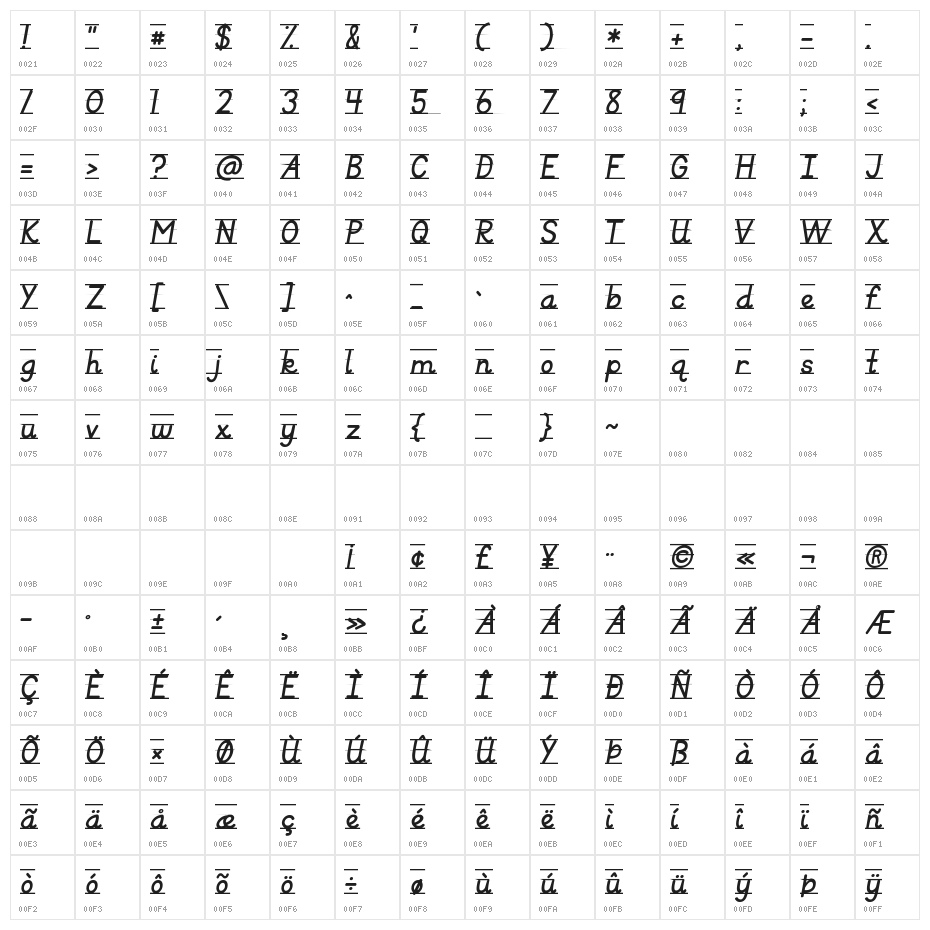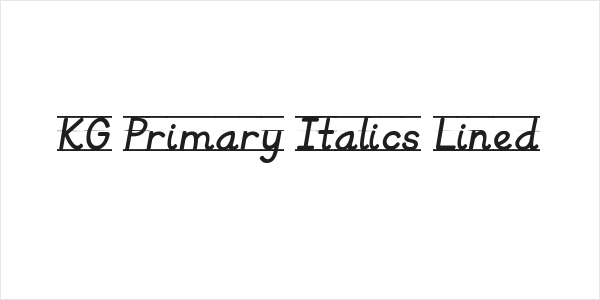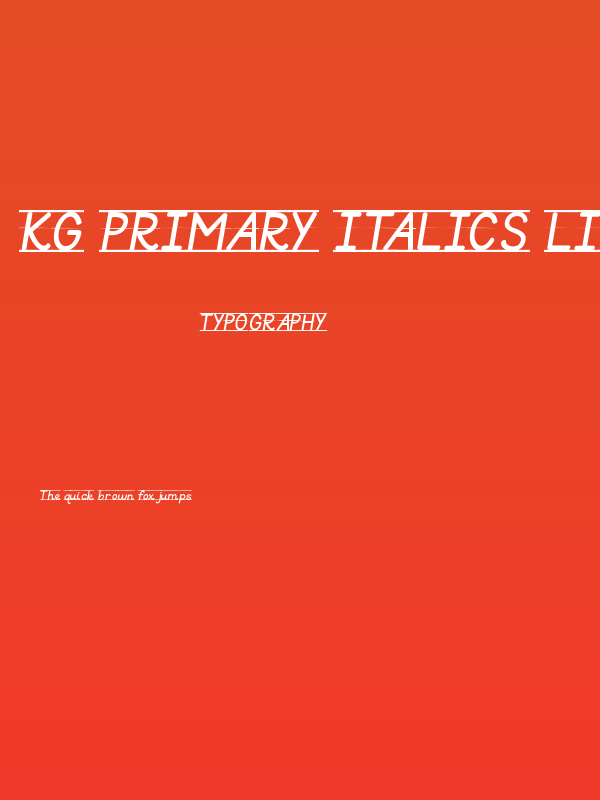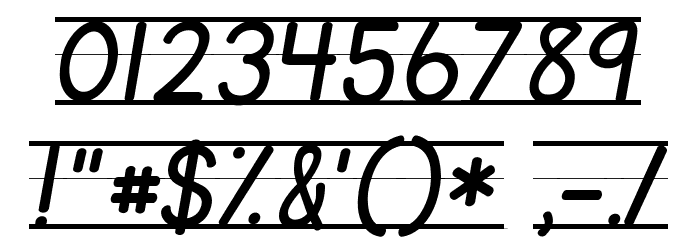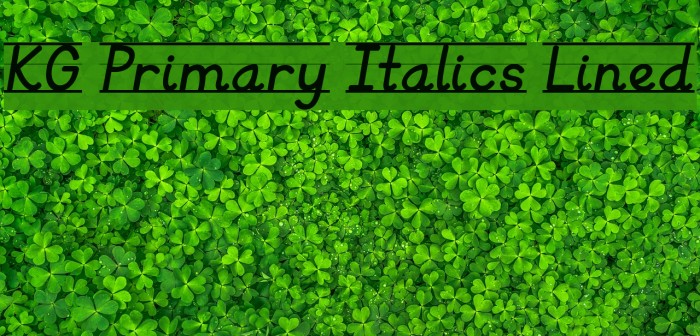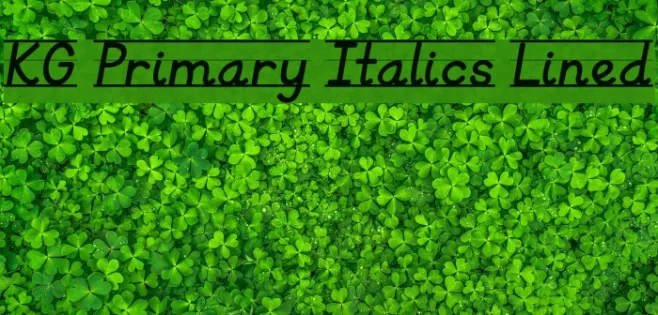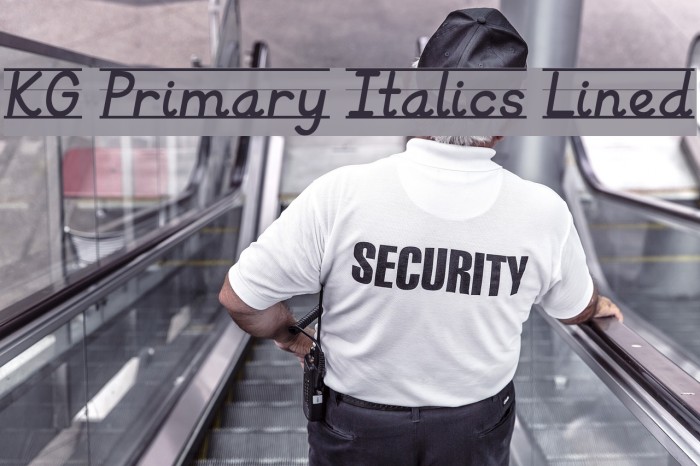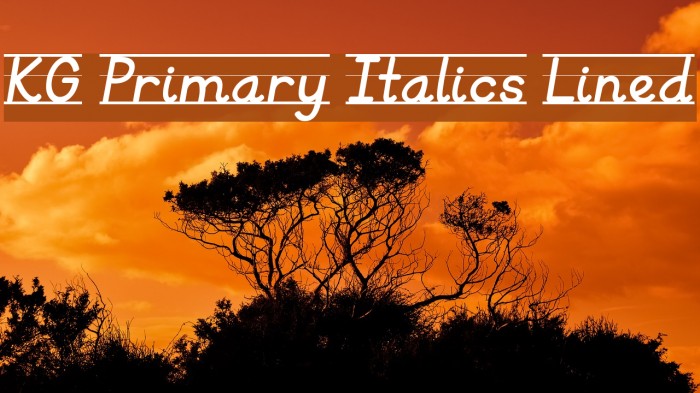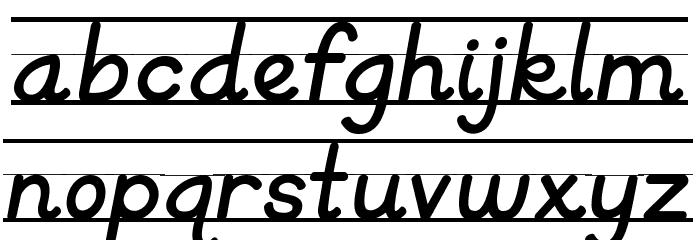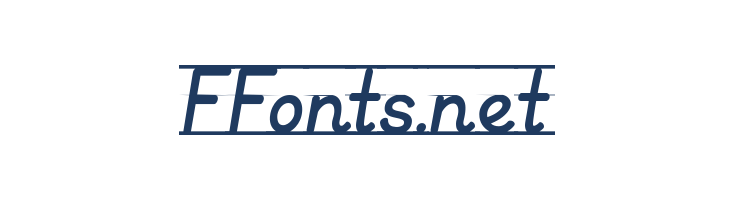
KG Primary Italics Lined Font
| Style général | Educational, Playful |
| Cas d'utilisation | Educational materials, Handwriting practice |
| Projets proposés | Ideal for educational materials, children's books, classroom posters, and handwriting practice sheets. |